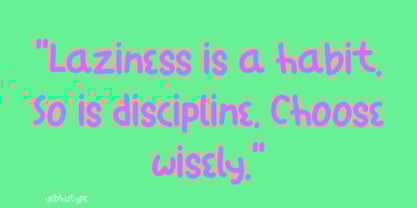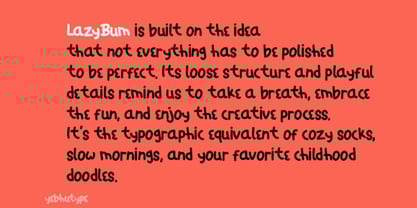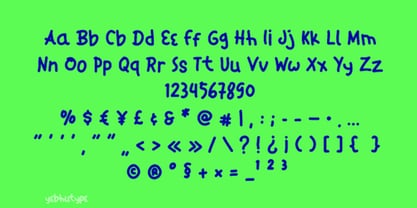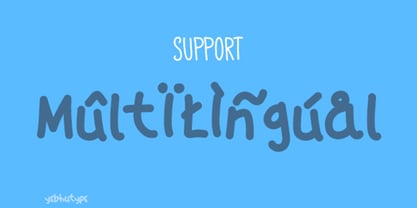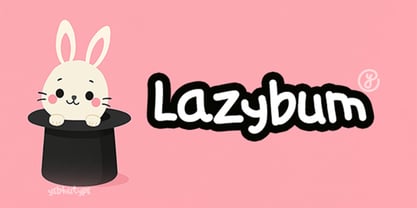
LazyBum Font: The Carefree Typeface That Scribbles Joy Into Every Design
Introducing LazyBum Font, a delightfully relaxed typeface that captures the charm of handwritten doodles and the ease of lazy afternoons. With its quirky lines and bouncy rhythm, LazyBum brings an effortless cheer to your work—like a friendly scribble in the corner of a notebook or a whimsical thought jotted on a napkin.
This isn’t just a font—it’s a vibe. LazyBum celebrates imperfection, spontaneity, and the joy of creating without pressure. Whether you’re designing for kids, dreamers, creatives, or just looking to add personality to your words, LazyBum wraps your message in warmth, wonder, and just the right amount of mischief.
The Essence of LazyBum Font
LazyBum is built on the idea that not everything has to be polished to be perfect. Its loose structure and playful details remind us to take a breath, embrace the fun, and enjoy the creative process. It’s the typographic equivalent of cozy socks, slow mornings, and your favorite childhood doodles.
Every letter in LazyBum dances with energy, reflecting the spontaneity of handwritten notes and the charm of homemade creations. It’s approachable, imaginative, and full of light-hearted character.
Key Features
🌀 Handwritten Energy
With its irregular lines, soft curves, and freeform flow, LazyBum feels like a font that’s come to life on the page. Imperfect in all the right ways.
😎 Relaxed Personality
There’s nothing stiff or formal about LazyBum. It speaks casually and confidently, making it perfect for fun, informal designs that want to connect on a personal level.
📖 Readable, Even at Play
While quirky and playful, each character is thoughtfully crafted for clarity. It strikes the perfect balance between unique style and everyday usability.
🧸 Versatile Whimsy
From children’s books and toy packaging to digital quotes and DIY projects, LazyBum fits right in wherever creativity and friendliness are required.
🖌️ Authentic Handcrafted Feel
Designed to look like it was drawn with care—not perfection—LazyBum brings a human, heartfelt touch to your text, helping your designs feel alive and approachable.
Mood & Personality
LazyBum Font feels like the laugh at the end of a long day or the cozy joy of sketching for fun. It’s a little rebellious, wonderfully imperfect, and filled with easygoing charm. Think: school notes, playful signs, coloring books, or that one friend who always brightens your day.
Ideal Use Cases
📚 Children’s Content & Storybooks
LazyBum makes reading feel like play, turning pages into playgrounds with its friendly forms and story-ready style.
🎨 Creative Brands & Boutique Packaging
Stand out with a font that doesn’t take itself too seriously. Great for handmade goods, indie brands, and products that want to be loved at first sight.
💌 Greeting Cards & Invitations
Birthdays, baby showers, thank-you notes—LazyBum adds a touch of heart and humor that makes every occasion more memorable.
📱 Social Media & Digital Art
Want your content to pop? LazyBum grabs attention and makes your words feel authentic and expressive—perfect for quotes, reels, and posts.
📔 Personal Projects & DIY Crafts
From planner spreads to art journals, LazyBum adds warmth and personality to anything you create by hand or heart.
Why Choose LazyBum Font?
LazyBum is for creators who believe that expression matters more than perfection. It’s a reminder that it’s okay to scribble, to be silly, to be human. In a world full of sleek design, LazyBum stands out by being boldly genuine. It doesn’t whisper or shout—it smiles.
Let Your Words Lounge and Laugh
LazyBum Font makes room for joy, spontaneity, and connection. Each letter is an invitation to slow down and have fun—to design like no one’s watching and create like it matters. Whether you’re telling a story, sending love, or just decorating your day, LazyBum helps you do it with flair.